Questions for Font Creators Part 7: First Glyph to Be Designed
The question “What is the first glyph you create in typeface design?” was asked to staff at the Type Project.
Among the answers from the Japanese designers, “あ” is mentioned as a specific glyph in many cases. Also, the second most common answers are the “glyph that matches the atmosphere of the typeface.” After all, the first character to be created becomes a standard for design of the characters to follow later, so many designers tend to start working on a glyph that leads them to imagine the other images in the entire typeface.
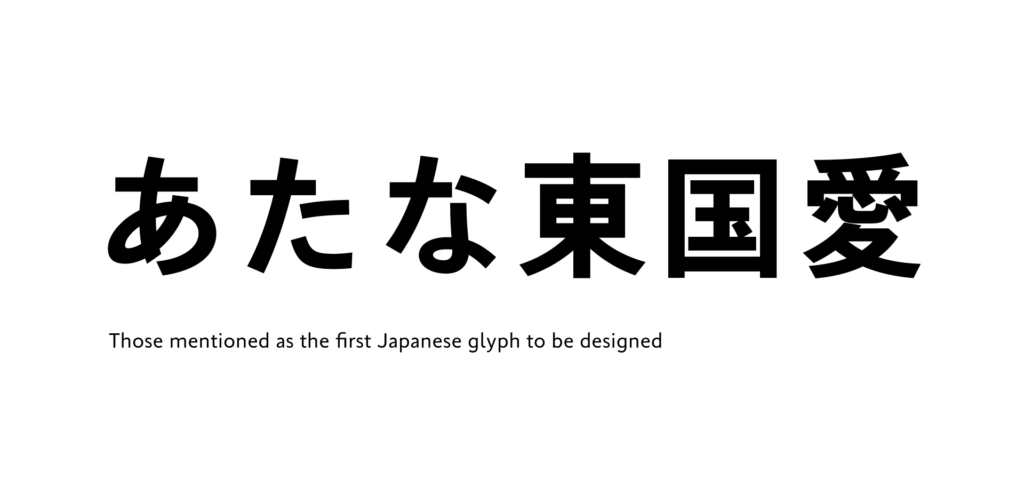
- “あ” or a character that matches that typeface:
To think about the atmosphere that typeface has, I always write “あ” first.
- “東,” “国,” “愛” “あ,” “た,” and “な”:
Although I don’t have much experience in creation, I start creation from either hiragana or kanji.
- Although it is different depending on the typeface, I often create “あ” at an early stage:
Depending on the typeface, there are quite a lot of cases in which I start from kanji.
- A character required in documents or a word that resembles that typeface:
For work at Type Project, I start creation from a character that is required in documents. When I create something individually, I often start creation from a word that should represent the typeface. When I can create the atmosphere with that, my motivation increases.
- First, I decide on a word that suits the image to start creation. So, I don’t have a single choice in particular.
In the answers from Latin designers, “adhesion” appeared commonly.
This eight-character word is recommended many times in workshops, classes, etc. for Latin design is a character string containing well-balanced elements that can be applied to other glyphs. There is a website “[adhesiontext]” that can generate text to use to check the design of the Latin creation in progress.
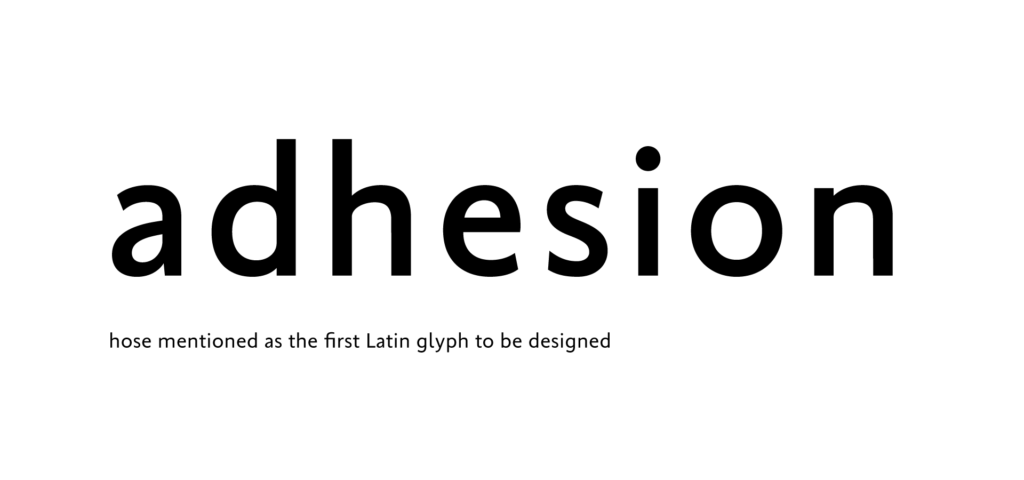
- “a,” “n,” and “d”:
Ever since I learned in a class in my college days that it is good to start creation from “adhesion,” I have always started creation with these characters. When I have to sketch quickly, an eight-character word is too long, so I often start from “a,” which can show typeface features well in particular, and “n,” and “d,” which have elements that can be applied to the other glyphs.
- ”a”:
For “Adhesion” in Latin to be created first, I mistakenly created “adhesion,” and it has been my habit to start creation from the lower case letter “a.”